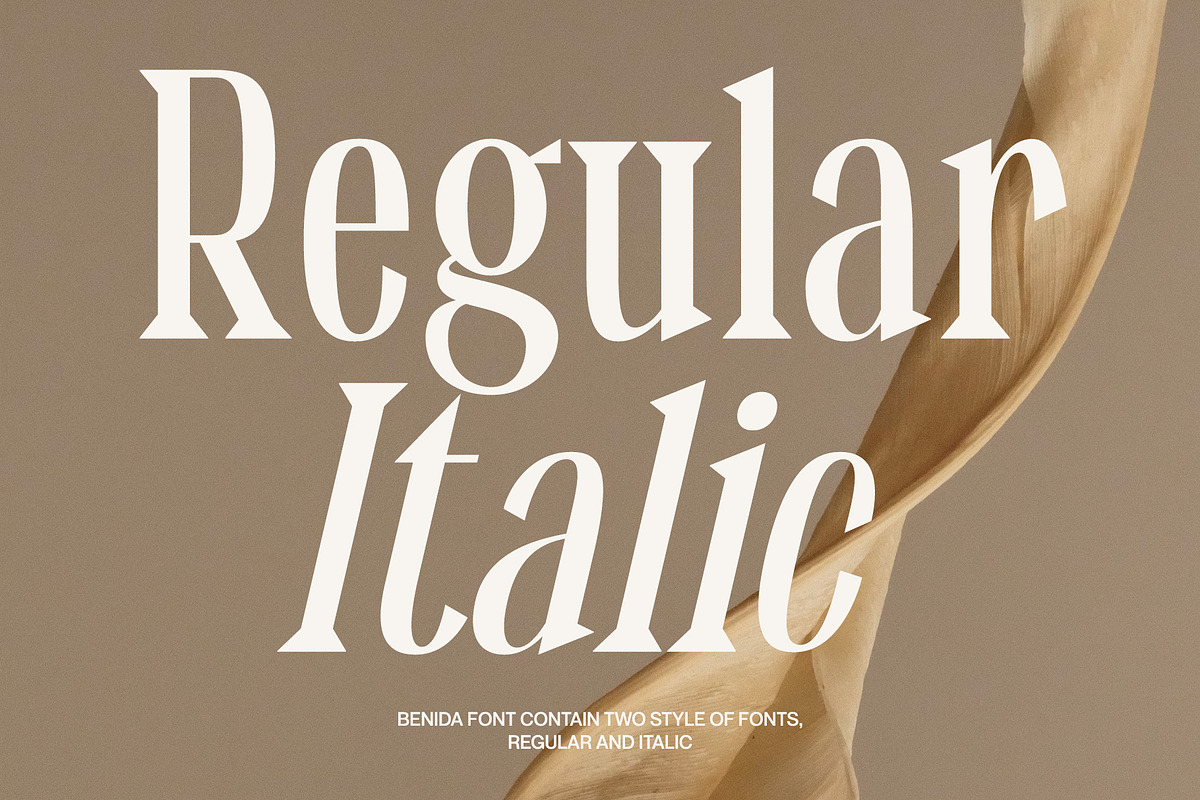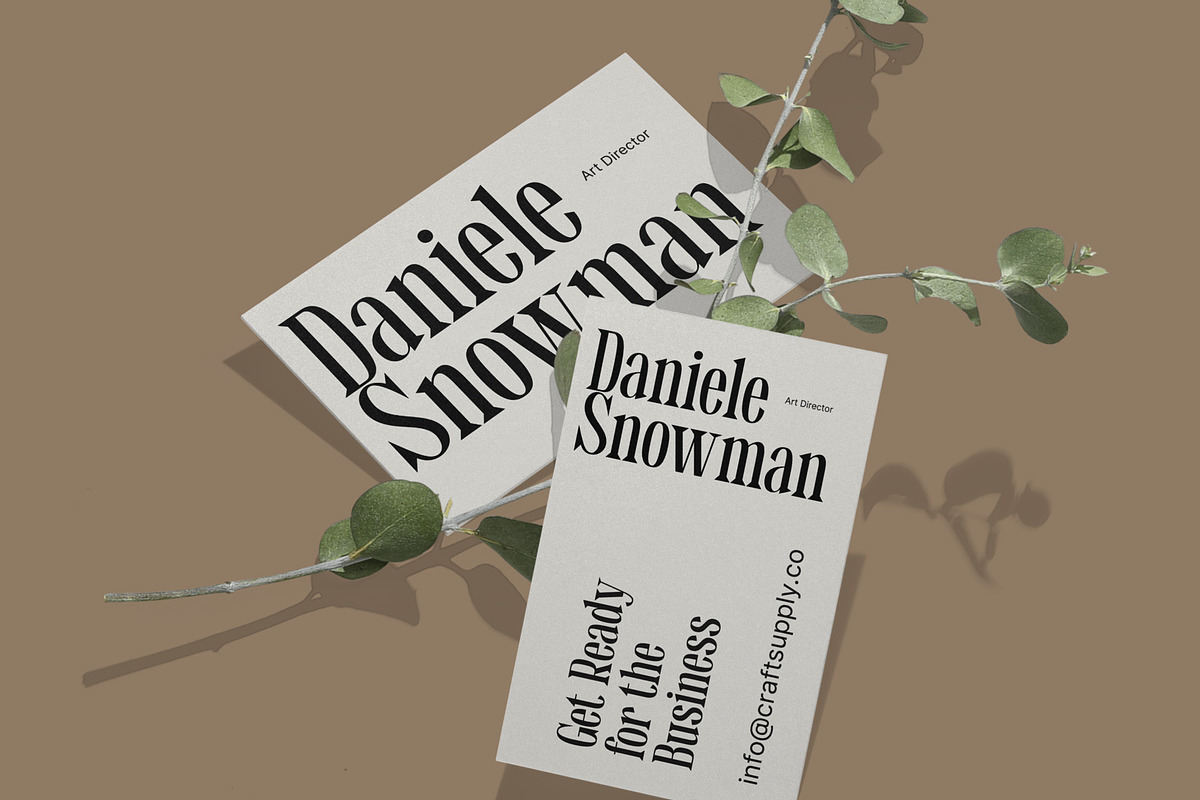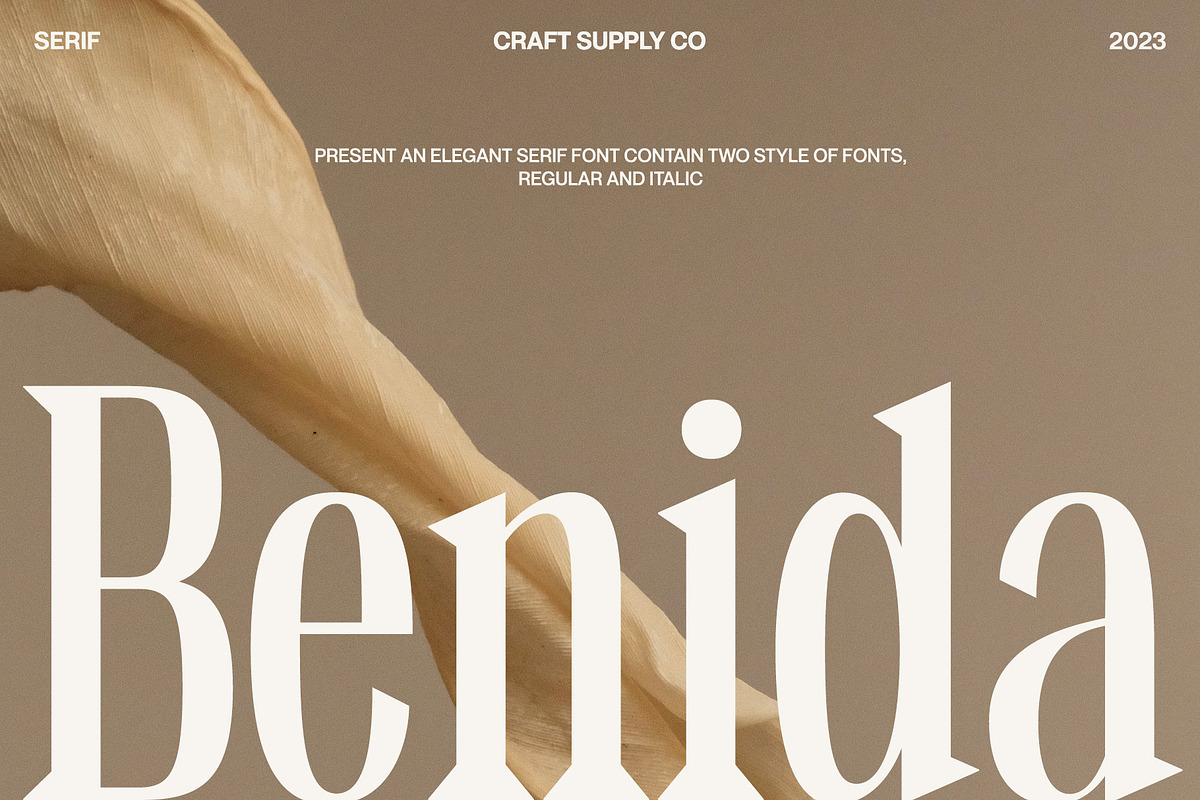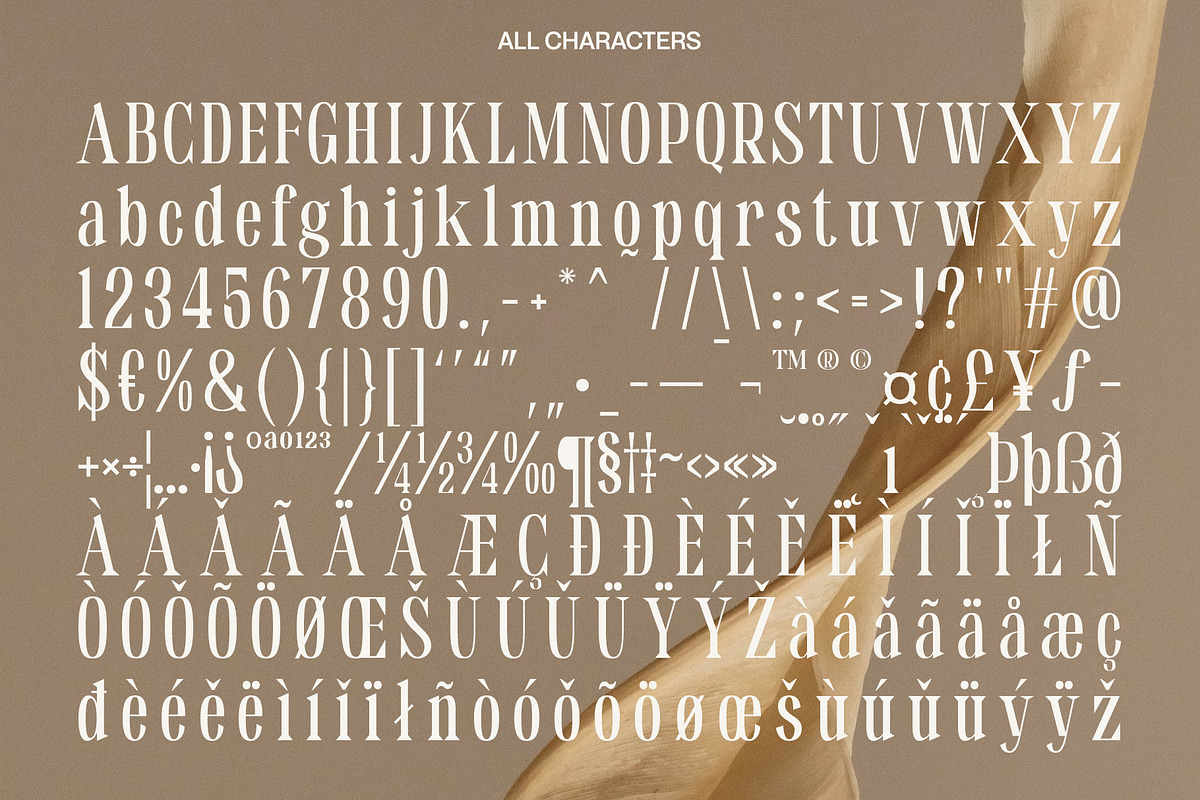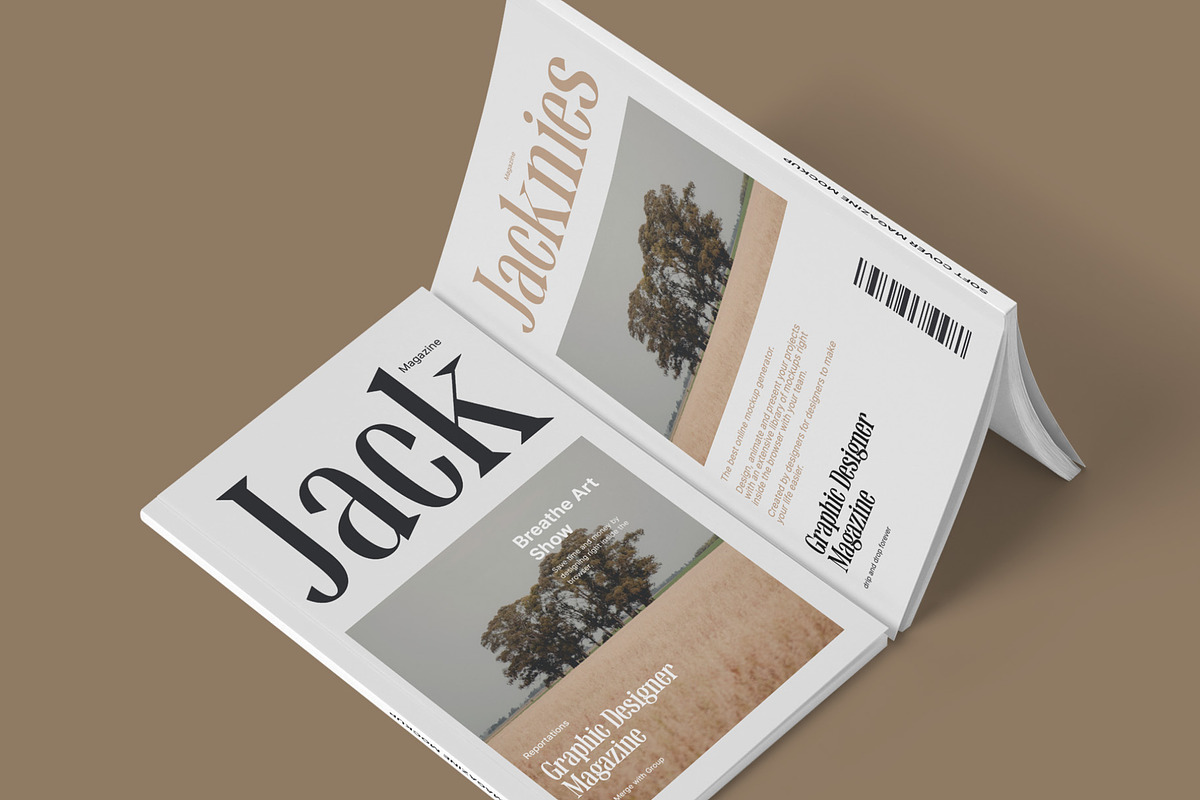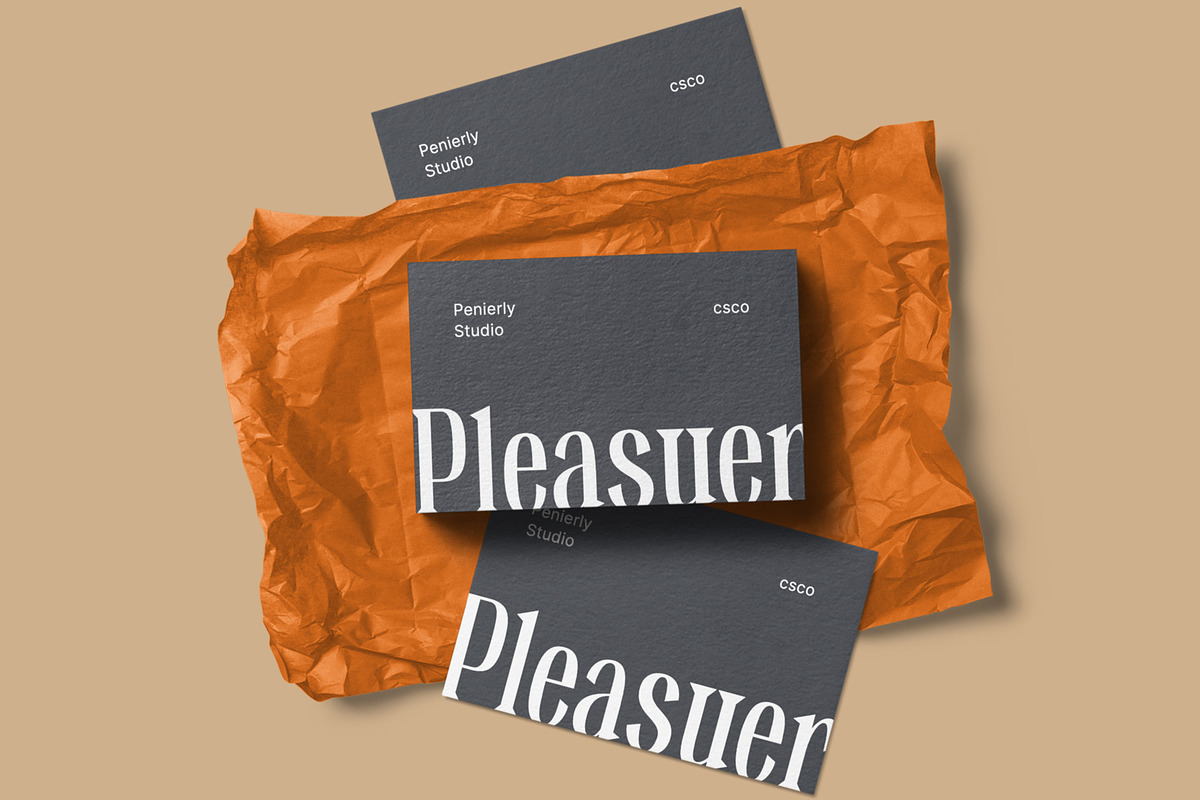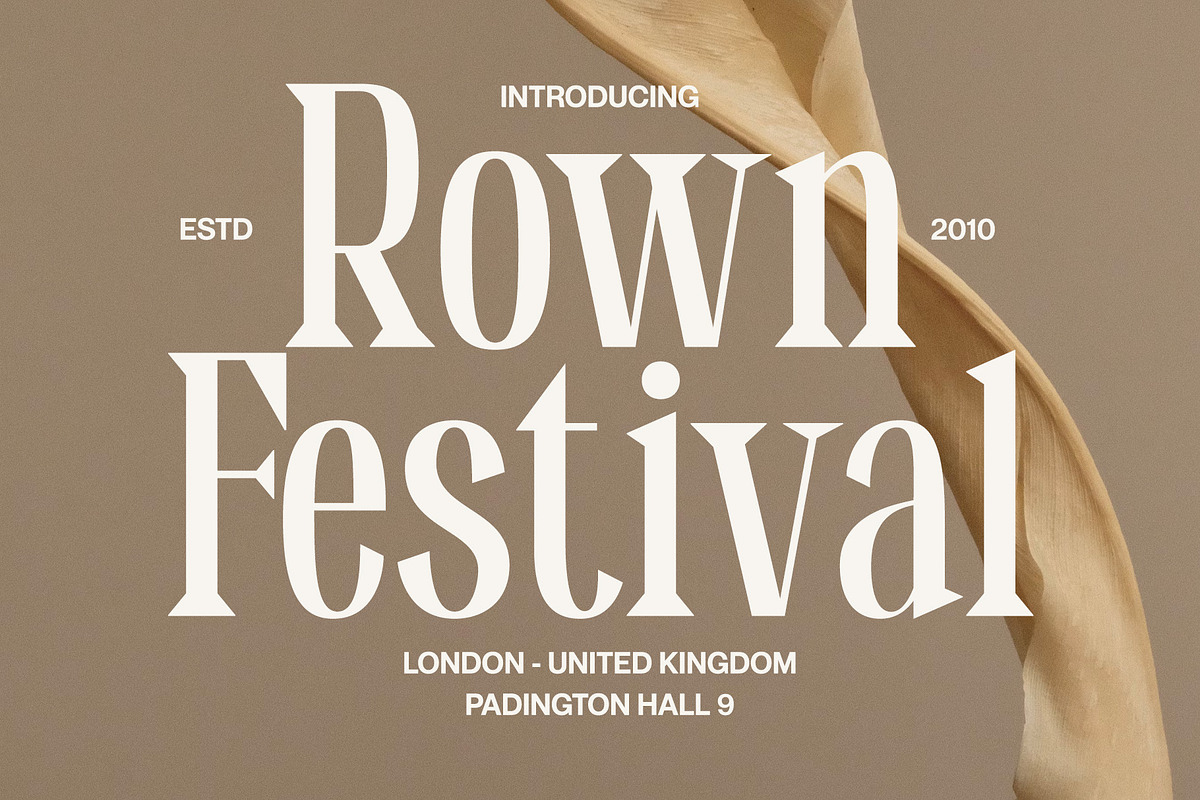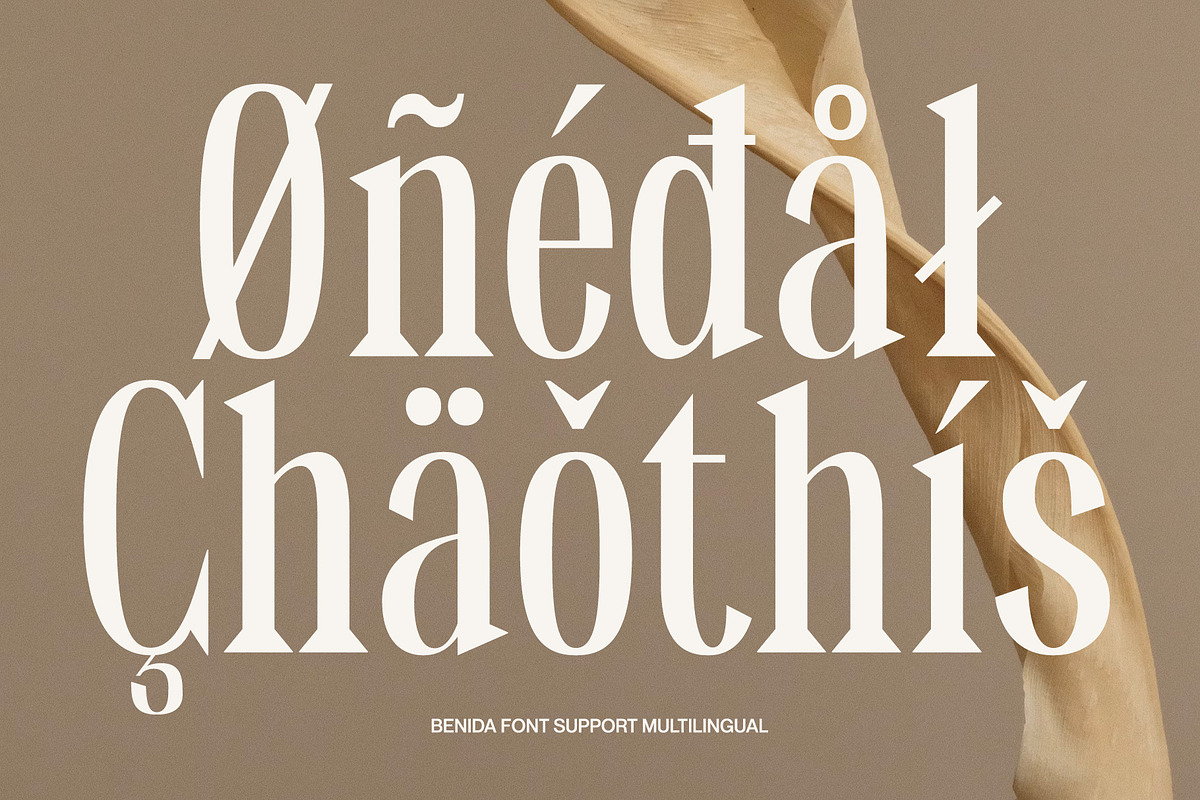
Benida – Elegant Serif
Introduction to Benida Serif Font Benida, an elegant serif font, offers a high-contrast serif design. Its unique style is perfect for various applications. The font’s design is both bold and refined, making it versatile. Ideal for those seeking a mix of elegance and assertiveness, Benida is a great choice.
Design Features Benida features high-contrast serifs, adding sophistication to its look. The wedges in the serif are carefully crafted. These elements combine to create a distinct, impactful appearance. The font’s structure balances strength with grace, making it stand out. This balance ensures that Benida is suitable for both formal and creative uses.
Usability and Applications Benida’s design makes it highly readable. It’s perfect for headings, logos, and editorial work. The font’s elegant nature suits wedding invitations and upscale branding. Its assertive qualities make it ideal for professional presentations. Benida truly shines in both digital and print formats, demonstrating versatility.
- Benida Regular
- Benida Italic